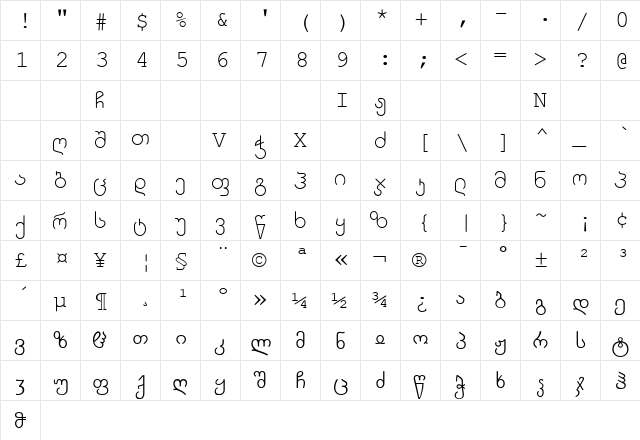
Margo Regular
Design Context for Margo Typeface
Margo offers clean, dependable letterforms without strong stylistic allegiance, making it a practical choice for designers who need flexibility.